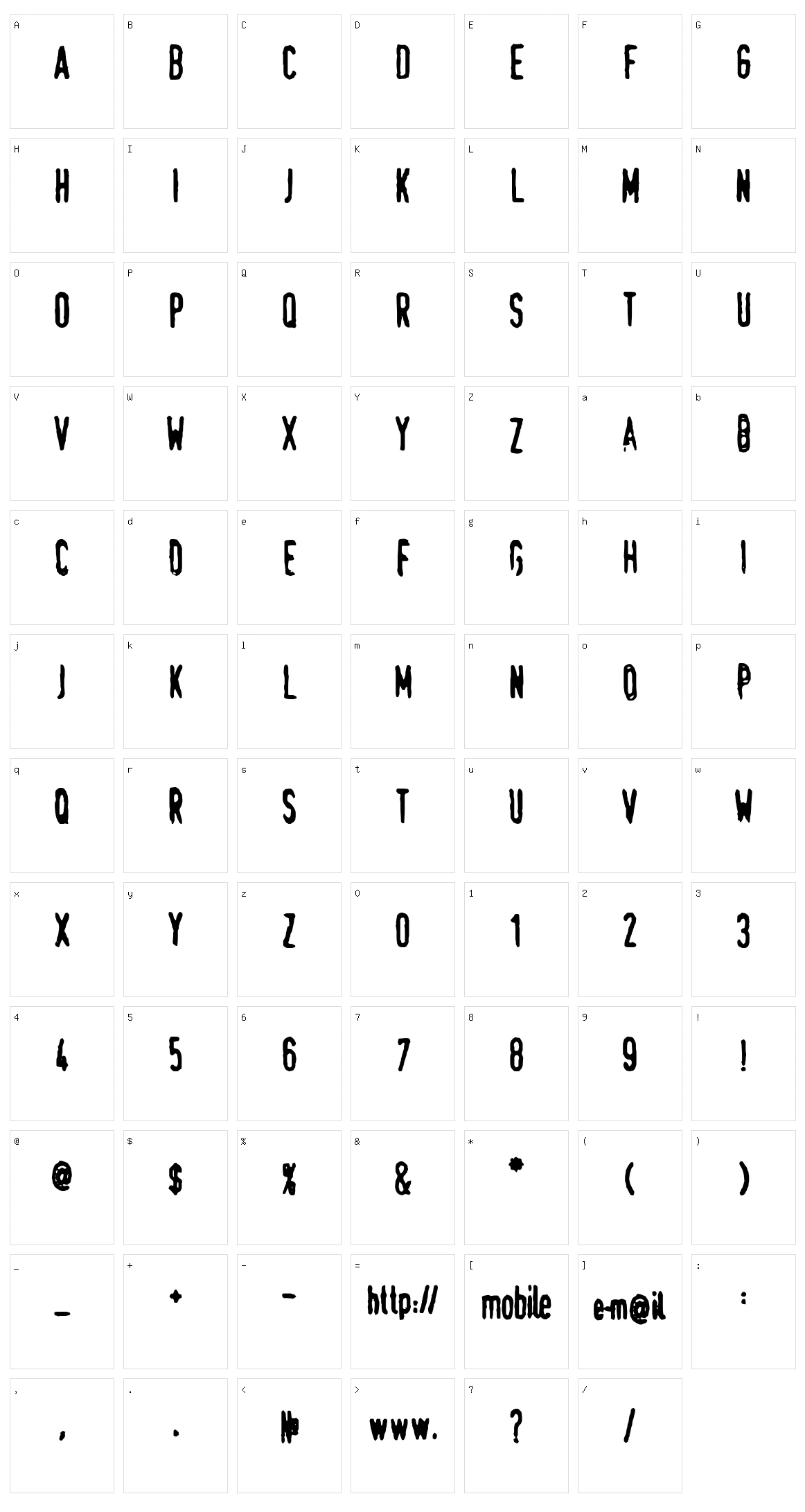
The free font Swede Trauma is carefully designed by Mr.Fisk Fonts, showcasing a thoughtful balance of creativity and usability and falls under the Eroded font style. When you download the ZIP file, it contains only 28.02 KB of font files, making it lightweight and quick to download. Please review the license details below to understand permitted usage and distribution rights. If license information is not available, we recommend using this font for personal projects only or contacting the author directly for commercial usage permissions.